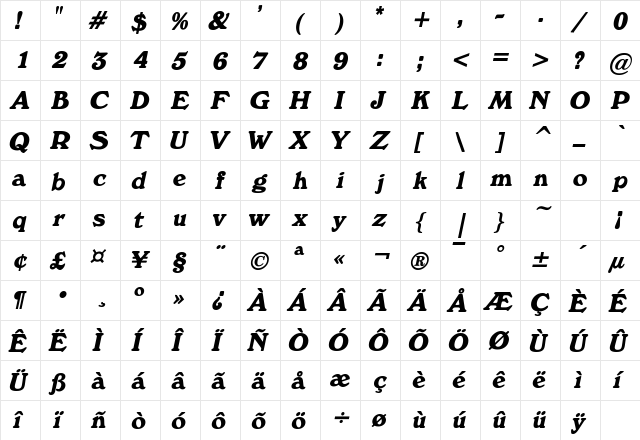
Buckingham BoldItalic Font Preview
Buckingham BoldItalic
Design Context for Buckingham Typeface
Buckingham is a composed and adaptable typeface that performs quietly and consistently across a wide range of design contexts. The dynamic lean of this cut emphasises speed and emphasis in any layout. Its bold stroke weight gives it real presence on the page.
Pro Tip: Try Buckingham for annotation and caption copy alongside an upright companion — the contrast in angle creates a dynamic but ordered typographic system.